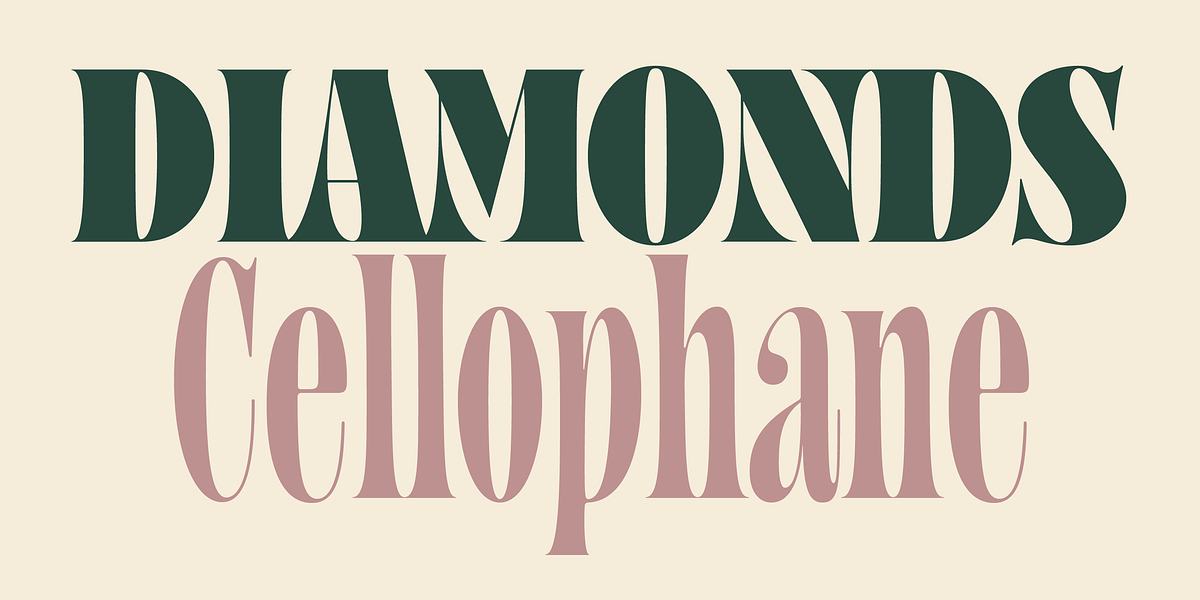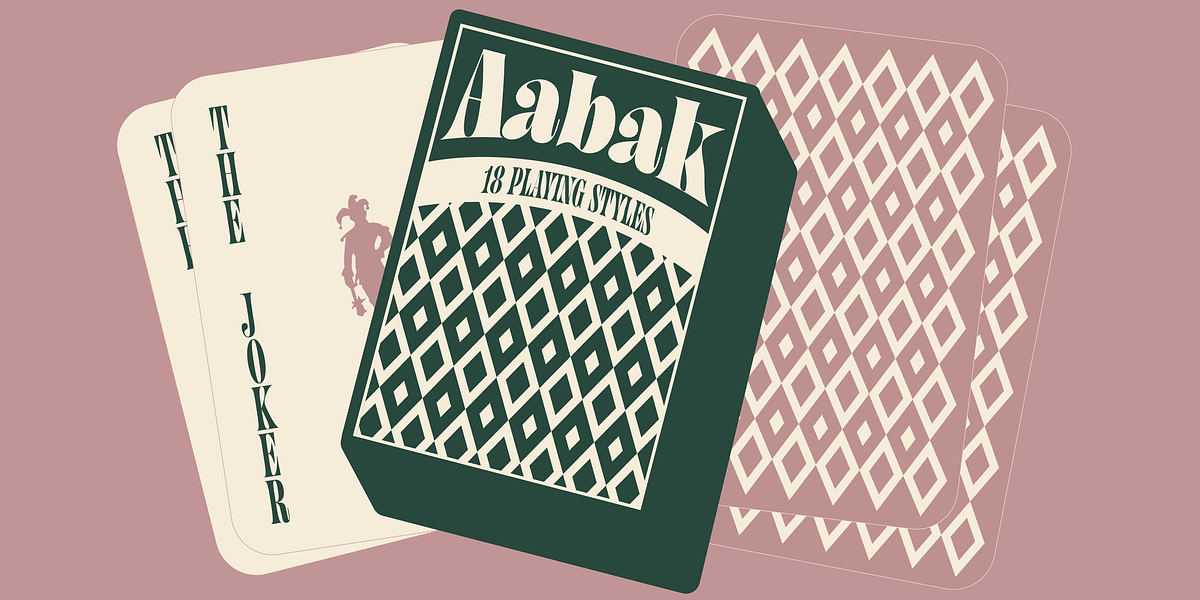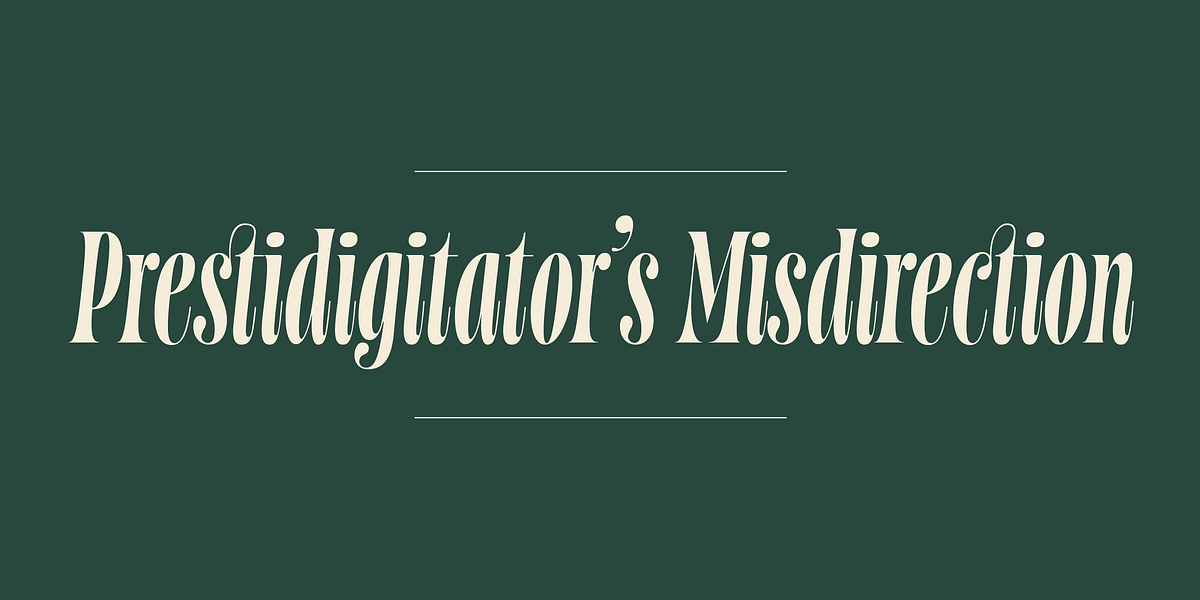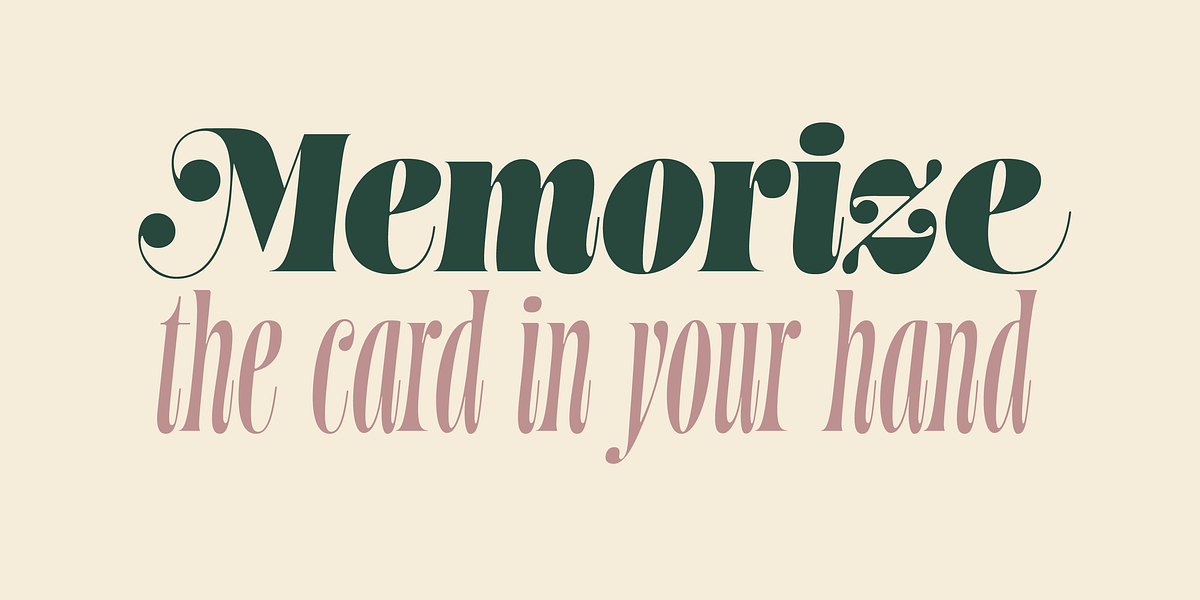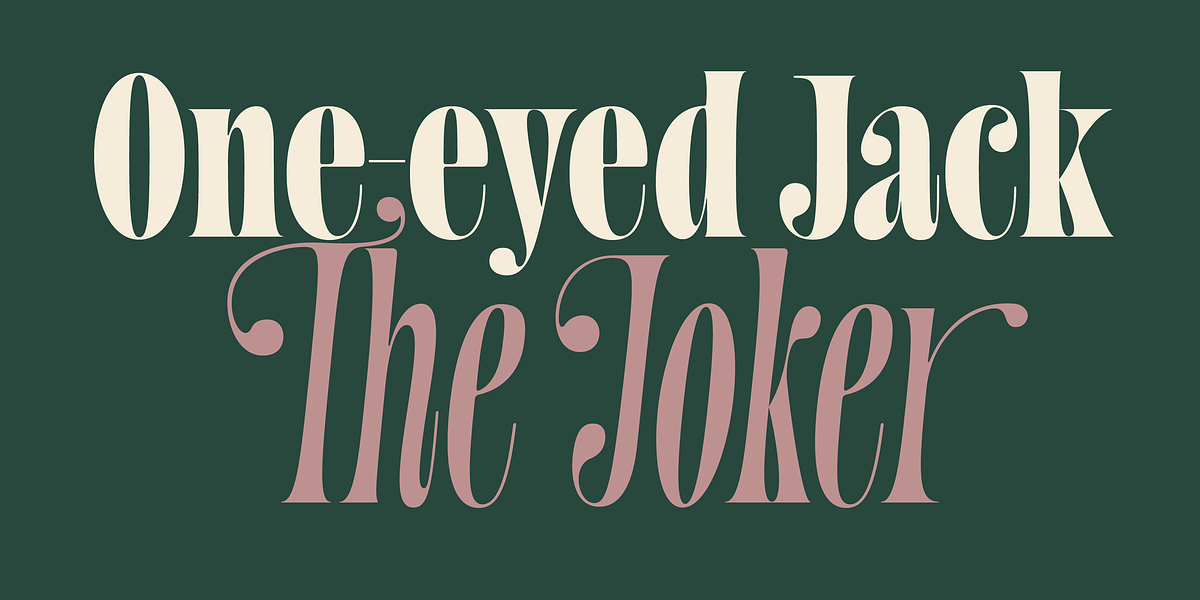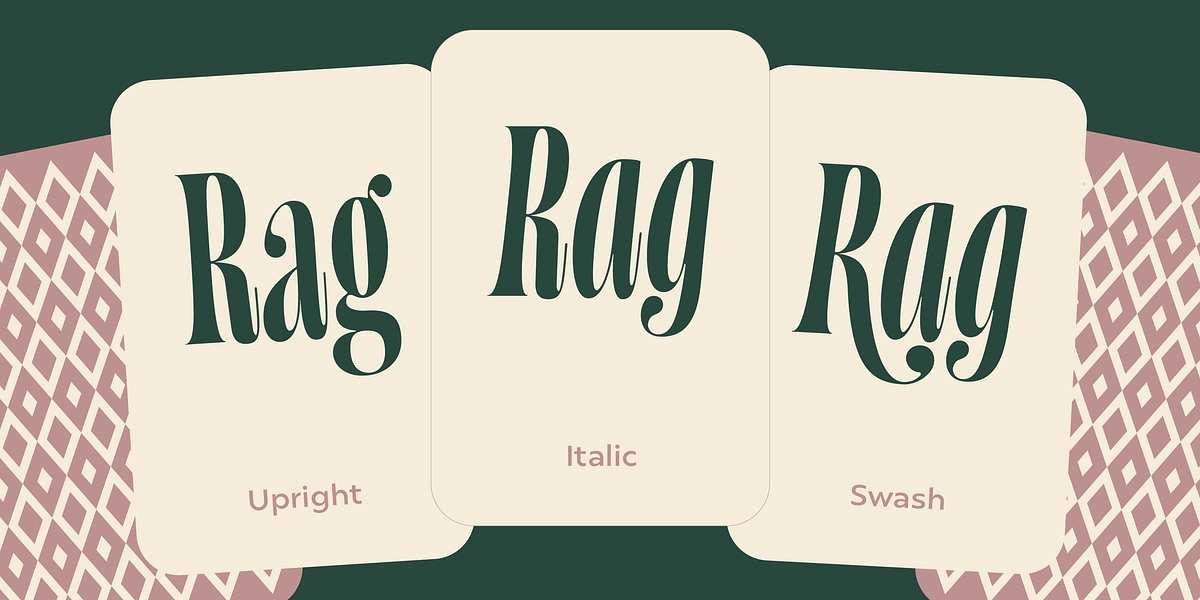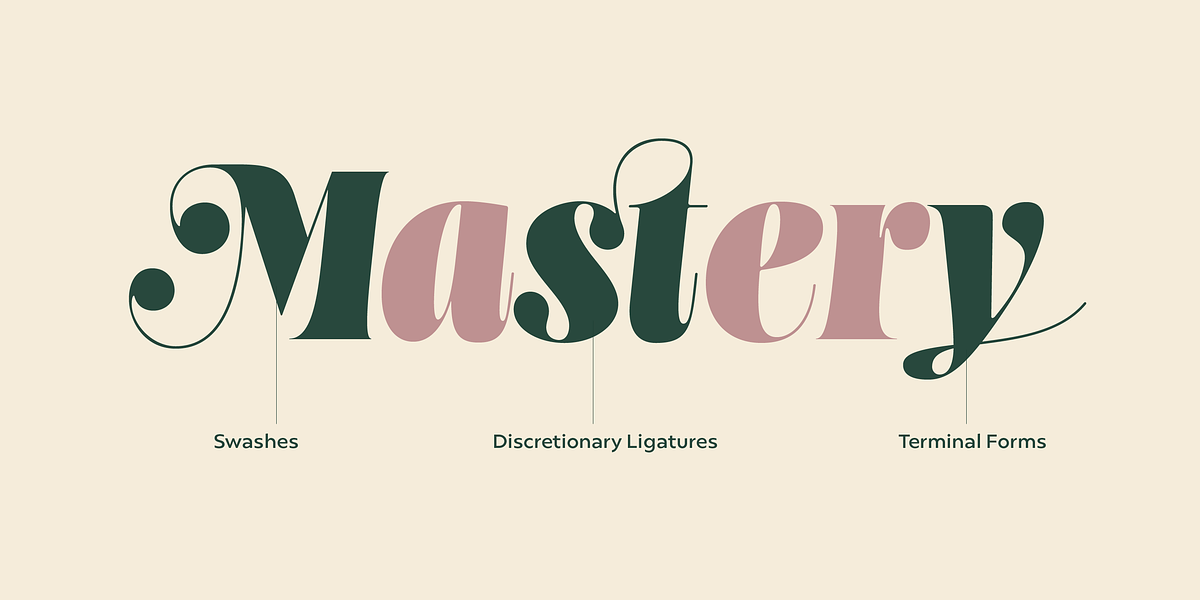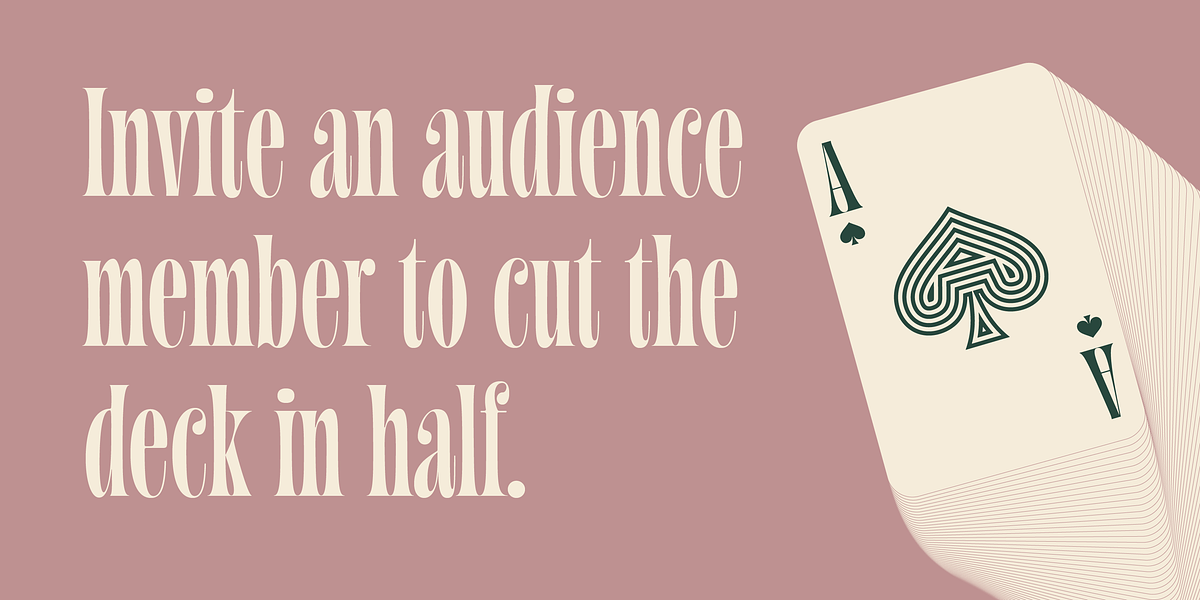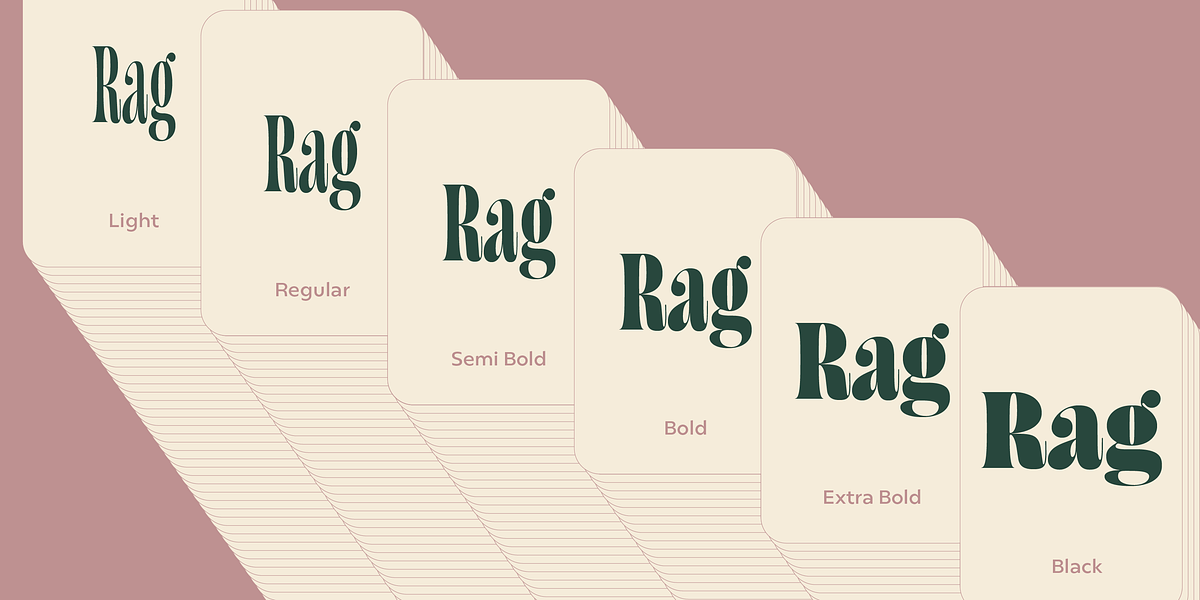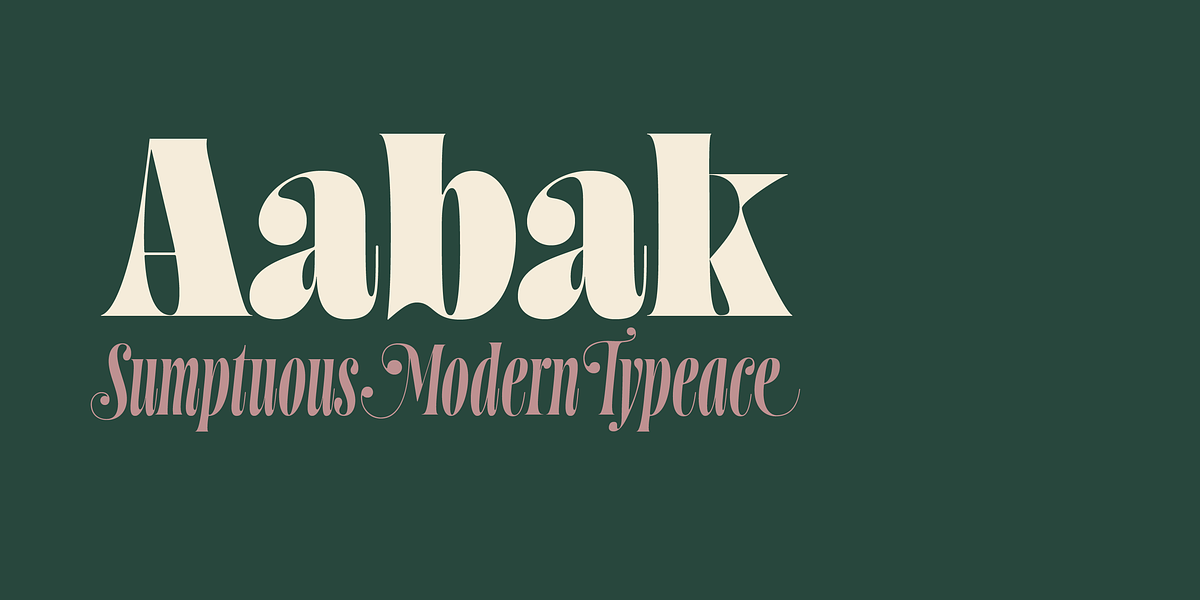
Aabak
Aabak is a modern display serif typeface with high contrast and elegant didone-inspired shapes. It incorporates subtle wavy elements reminiscent of 1960s psychedelic lettering, resulting in a fresh and contemporary aesthetic. The font family includes six weights across three cuts (upright, italic, and swash), offering versatility for various design applications.